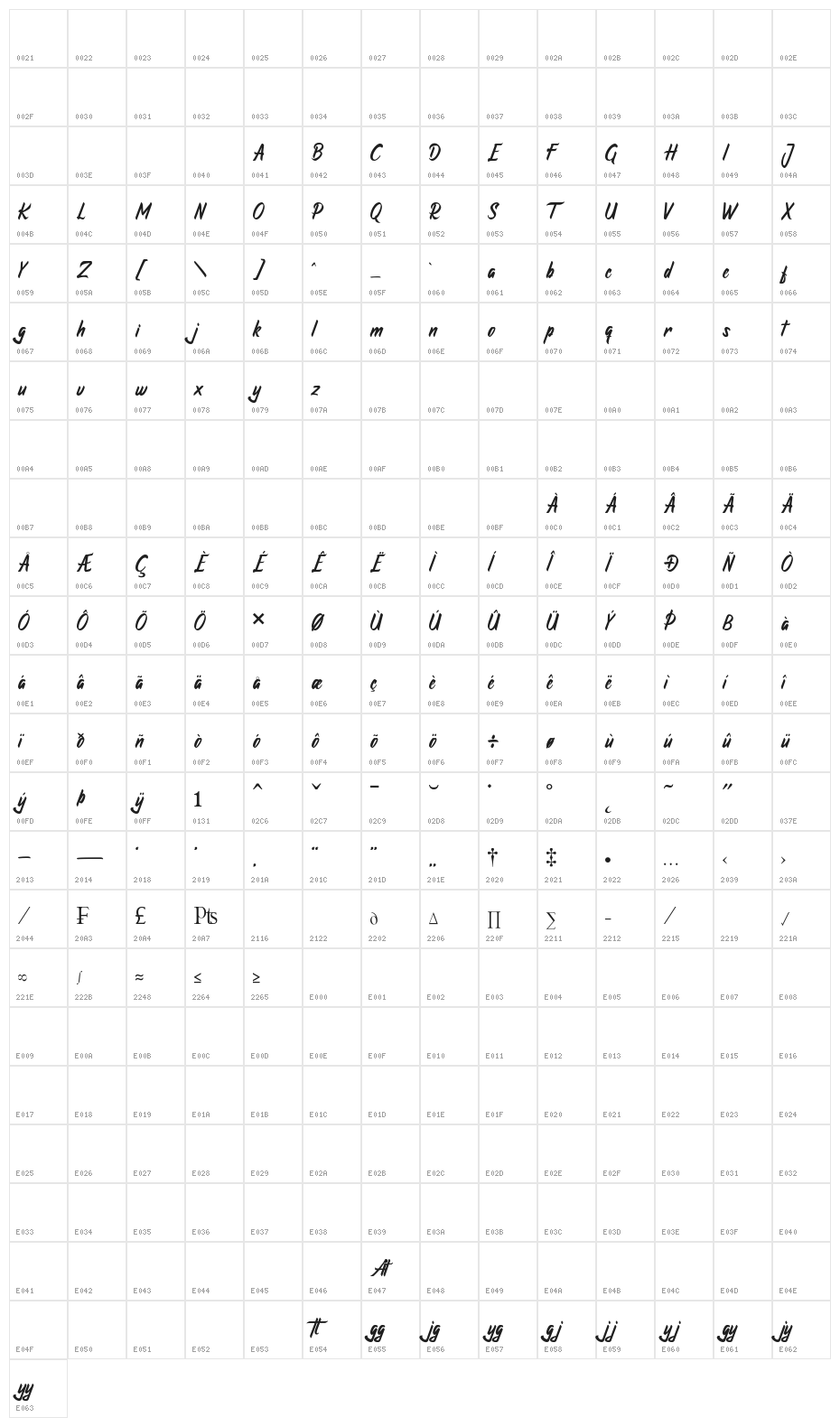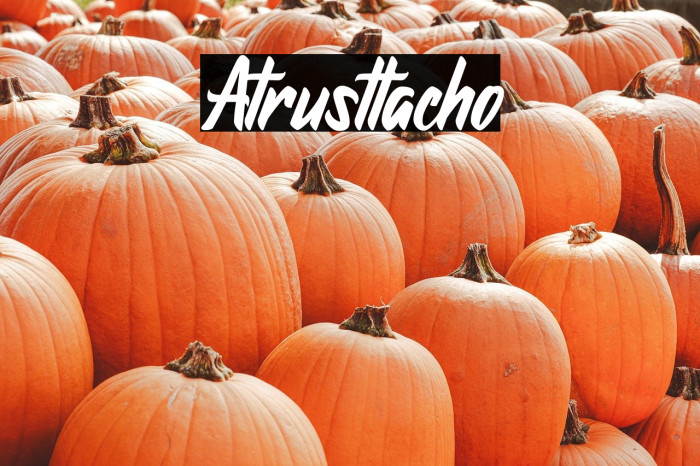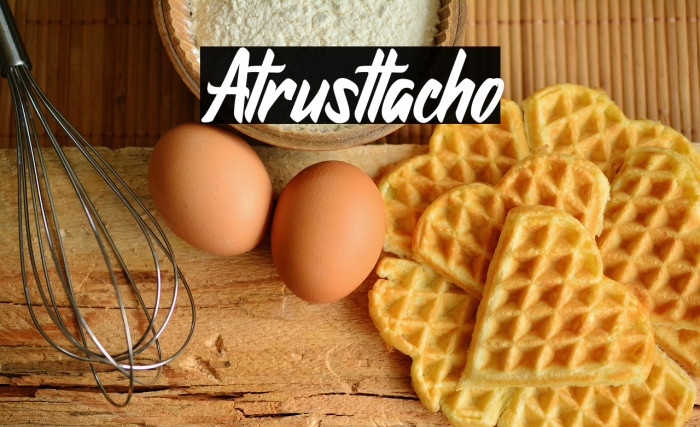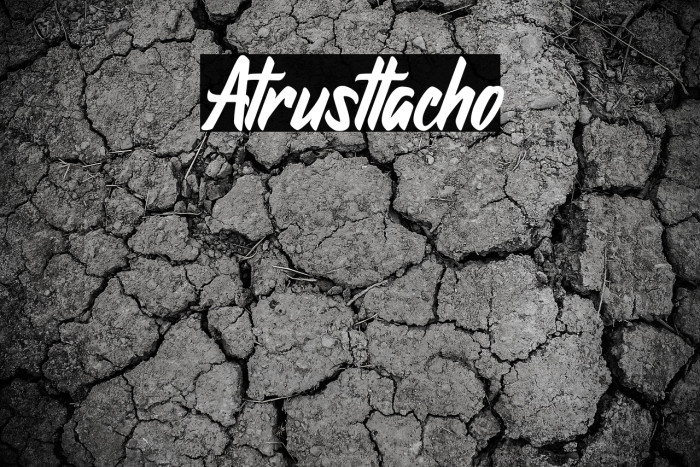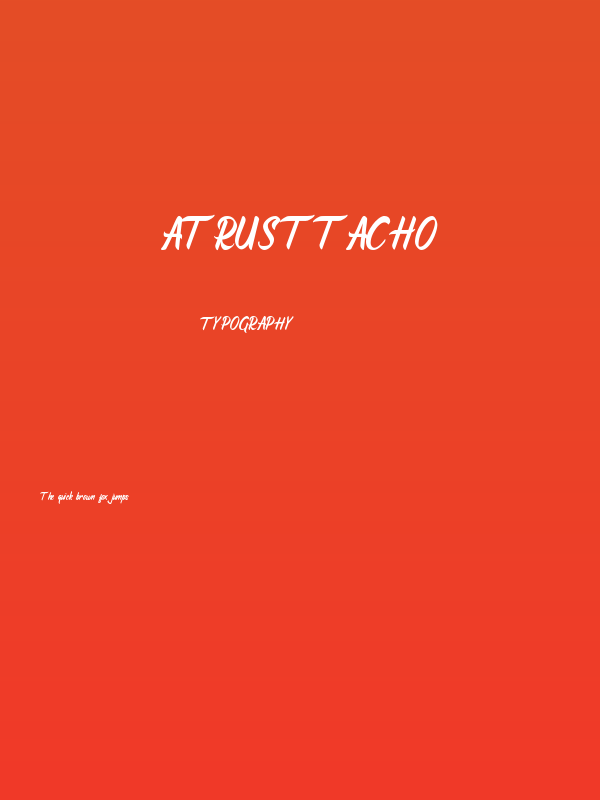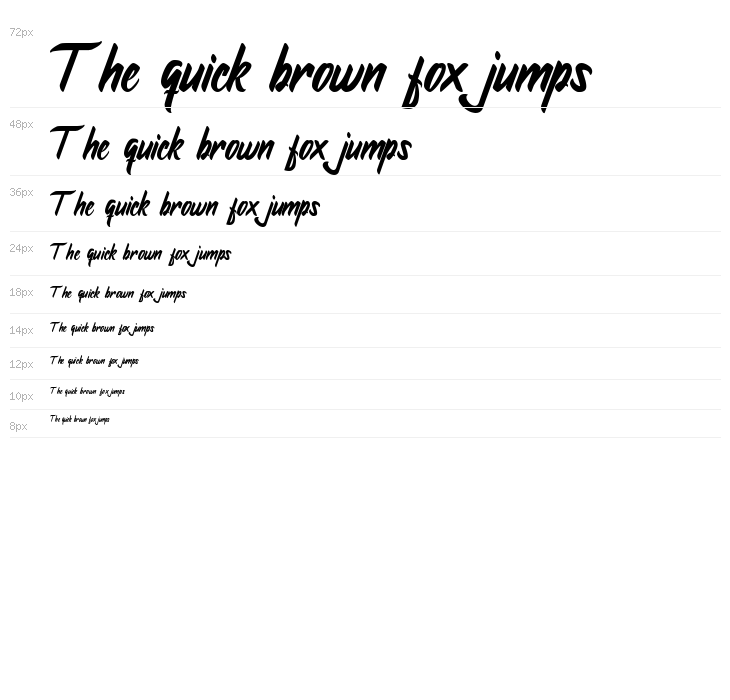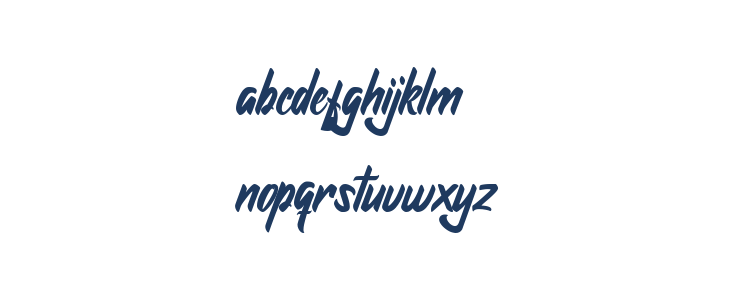
Atrusttacho Font
Atrusttacho Description
This font features a dynamic and flowing script style, characterized by its elegant and cursive letterforms. The uppercase letters are bold and slightly slanted, giving a sense of movement and fluidity. The lowercase letters maintain a consistent style with smooth curves and connected strokes, enhancing the handwritten appearance. The overall design is both stylish and legible, making it suitable for various creative applications. The font includes a full set of uppercase and lowercase letters, numerals, and a selection of special characters, all maintaining the same cohesive style.